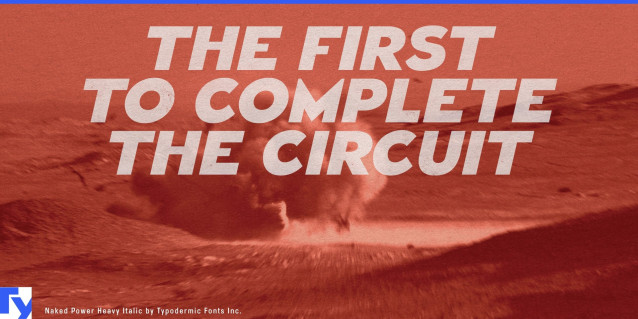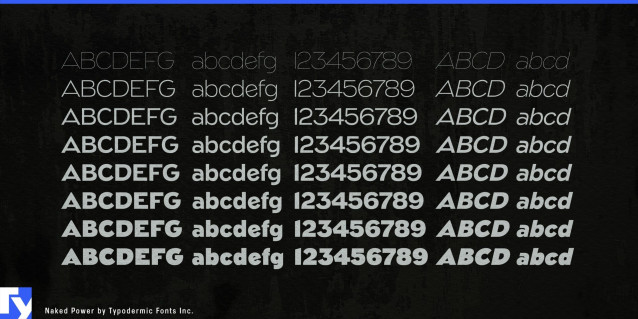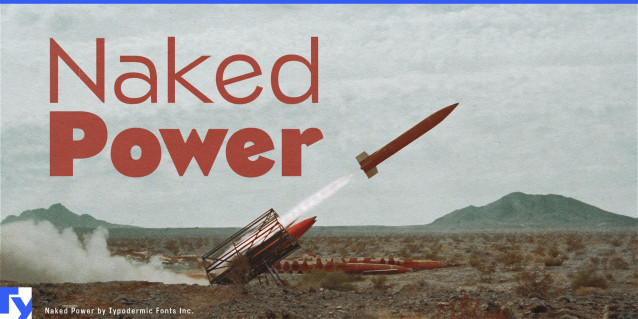
Naked Power Font
Naked Power Font is a geometric sans-serif typeface rooted in the bold authority of Morris Fuller Benton’s 1934 Eagle Bold, reimagined for contemporary design versatility. Created for the National Recovery Administration’s Blue Eagle logo and later seen on everything from government posters to album covers, Eagle Bold carried an unmistakable weight and presence. Naked Power builds on that legacy, adding a complete lowercase set and expanding the range to eight finely tuned weights from Hairline to Bold, each with a matching italic. The result is a type family that can shift effortlessly from refined minimalism to commanding impact, adapting to the needs of modern brands and campaigns.
Its construction balances strong verticals and squared counters with softened joins, giving it a firm, upright stance without sacrificing approachability. Lighter weights bring a clean, understated elegance to editorial layouts, while heavier styles deliver unmistakable emphasis in posters, signage, and political campaign materials. The italics provide a subtle lean for emphasis, maintaining the solidity of the upright forms while adding movement to key messaging.
With support for a wide range of Latin-based languages, Naked Power is engineered for clarity, consistency, and recognizability across global applications. Whether it’s anchoring a corporate identity, driving the visual voice of a political campaign, or commanding attention in retail environments, Naked Power offers designers a historically grounded yet thoroughly modern toolkit for making messages impossible to ignore.